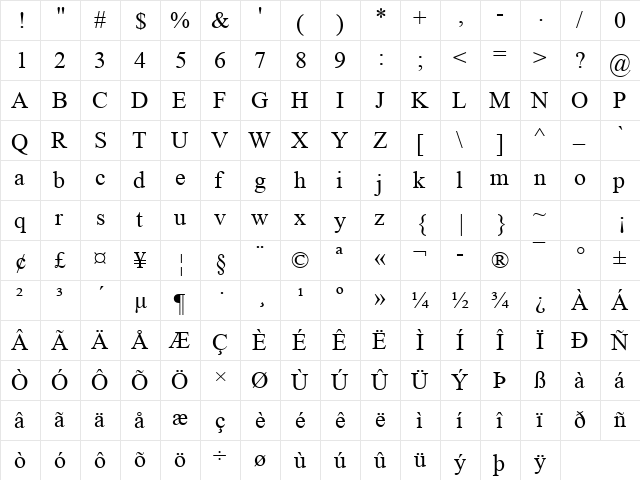
Iskoola Pota Regular
Design Context for Iskoola Pota Typeface
Iskoola Pota takes a measured approach to typography — its balanced proportions and neutral character make it a reliable workhorse for both digital and print work.
Pro Tip: Use Iskoola Pota in both headline and body roles to test its range before committing to a single application.